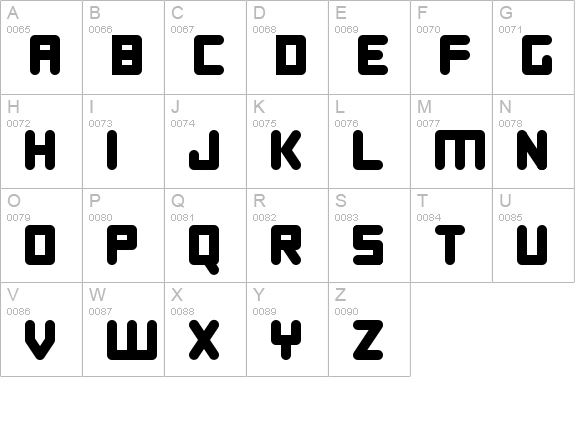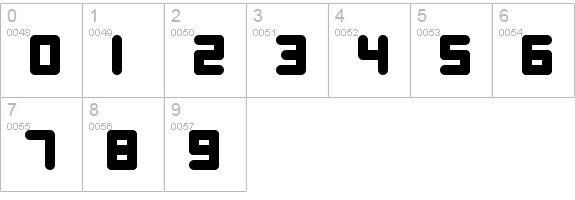
Digital Dreamers is a free for personal use font in the Modern > Techno category, designed by Darrell Flood. It has been downloaded 315 times and is available for Windows, Mac and Linux.
Digital Dreamers font is a beautifully crafted typeface that exudes creativity and innovation. This modern and stylish font is perfect for a wide range of design projects, from branding to web design to social media graphics. With its sleek lines and futuristic vibe, Digital Dreamers font is sure to make your designs stand out.